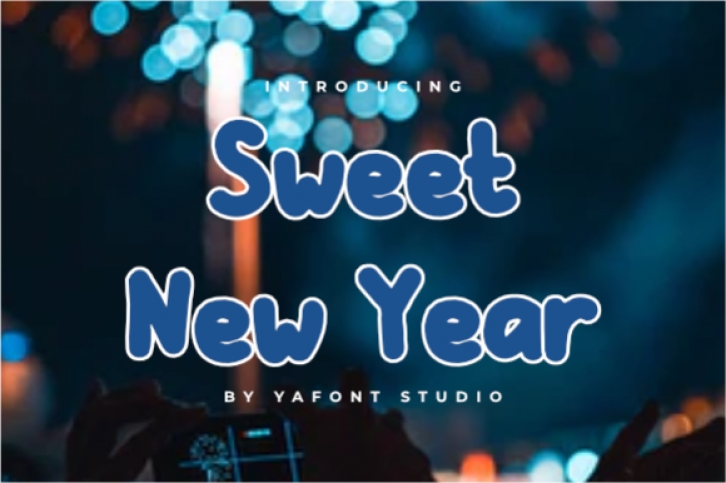
Sweet New Year is a simple and quirky display font. It can be used for various purposes such as logos, headings, t-shirts, letterhead, signage, labels, news, posters, badges and so much more.